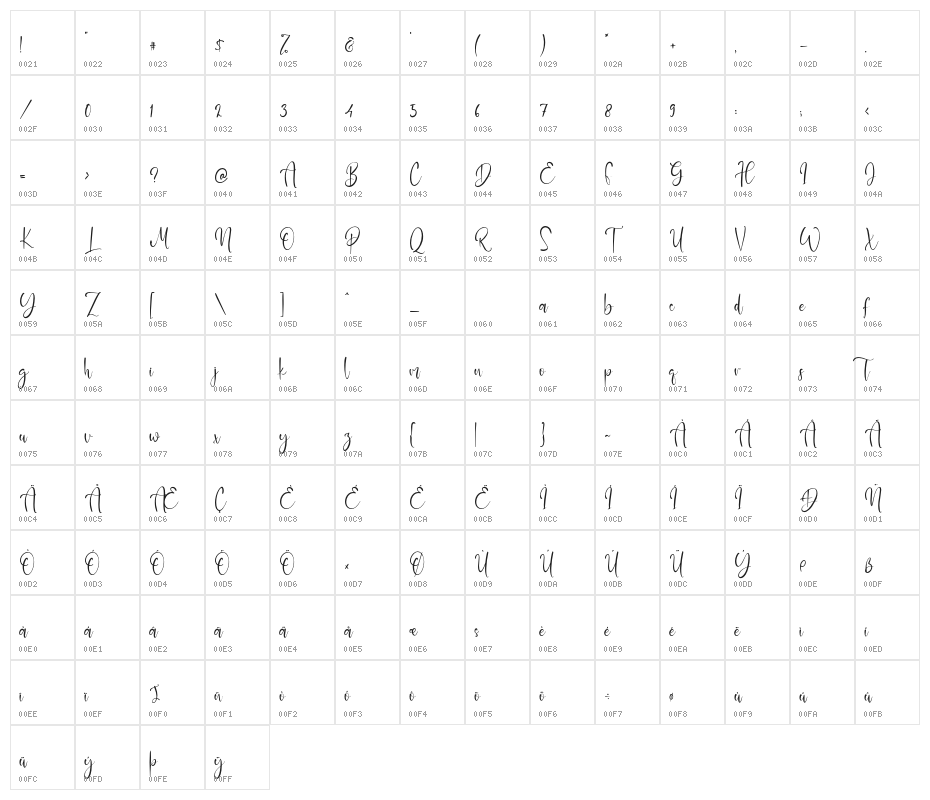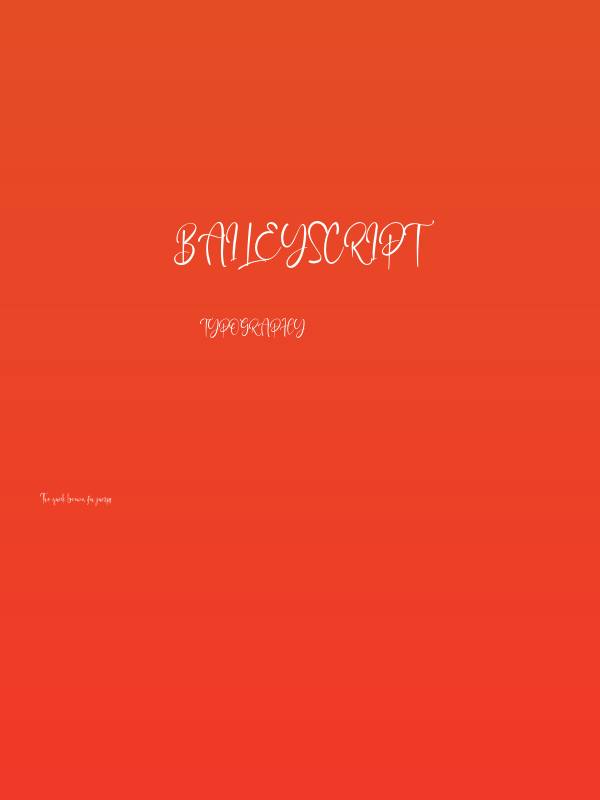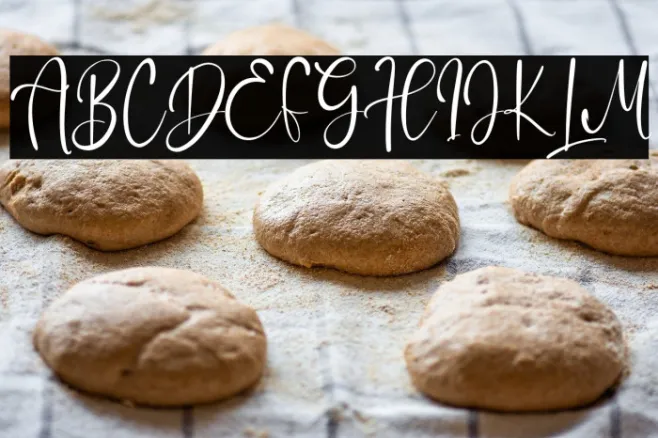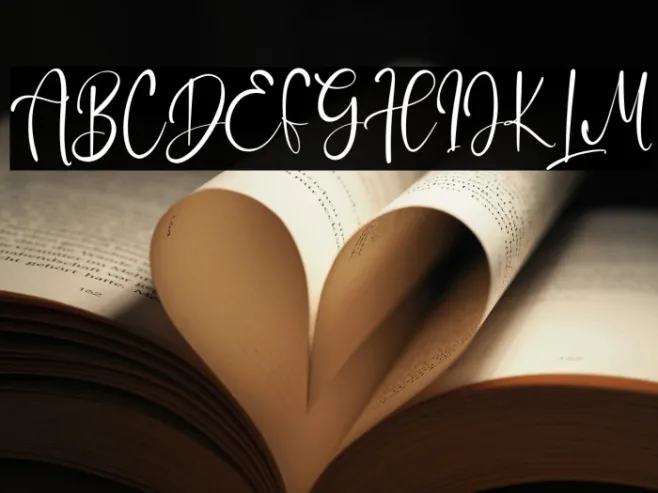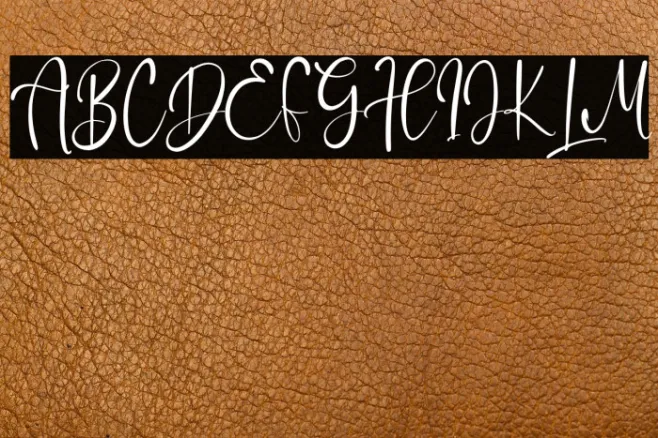
BaileyScript Font
BaileyScript Description
This elegant script font features a flowing, cursive style with a modern twist. The uppercase letters are characterized by their tall, sweeping ascenders and descenders, giving them a graceful and sophisticated appearance. The lowercase letters maintain a consistent fluidity, with smooth connections between characters that enhance readability while retaining an artistic flair. The numerals are designed to match the overall aesthetic, with a slight slant and decorative elements that complement the letters. Special characters are thoughtfully integrated, maintaining the font's cohesive look. This font is perfect for projects that require a touch of elegance and creativity.